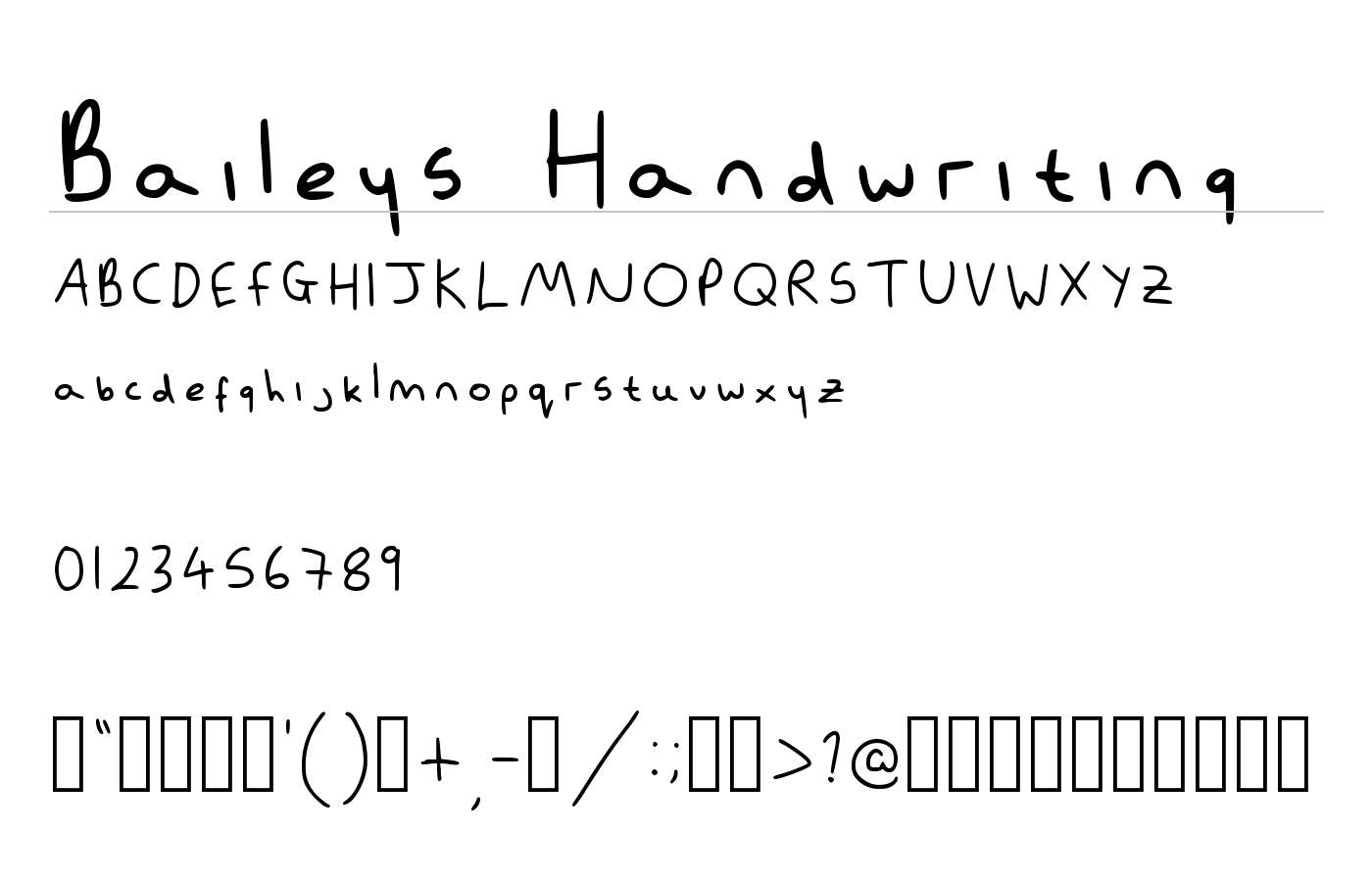
Baileys Handwriting Font is a casual, playful handwritten typeface that mimics natural pen strokes with slight irregularities and a light, airy feel. Its narrow width and simple, rounded letterforms create an approachable and friendly look, making it perfect for informal designs, kids’ projects, personal notes, and creative branding that seeks a warm, authentic touch. This font works well for headlines, invitations, and social media graphics where a relaxed and personable style is desired.
Baileys Handwriting Font